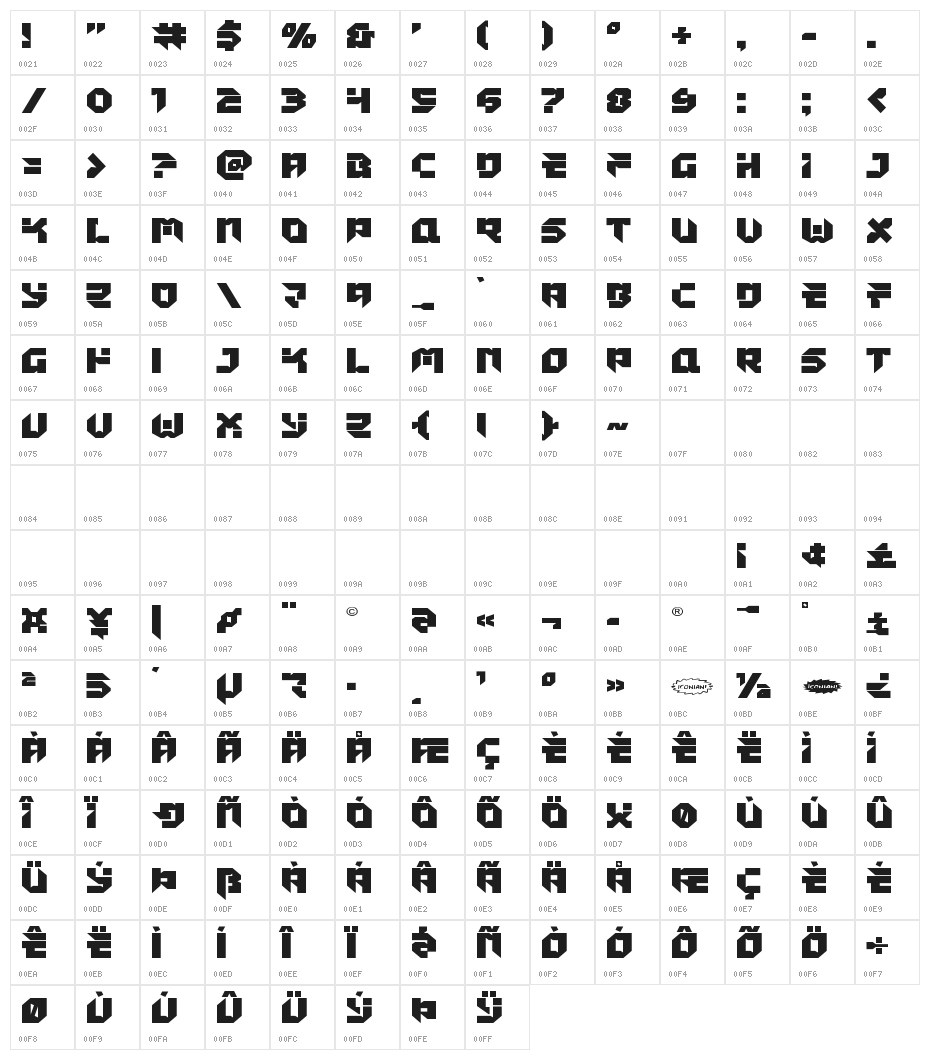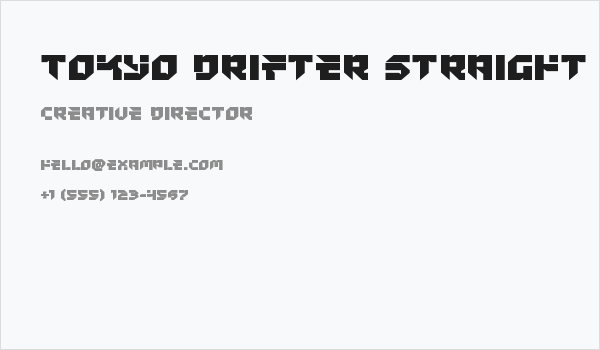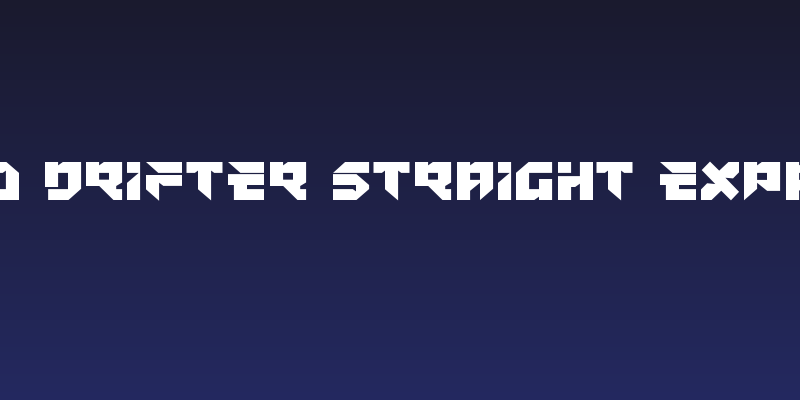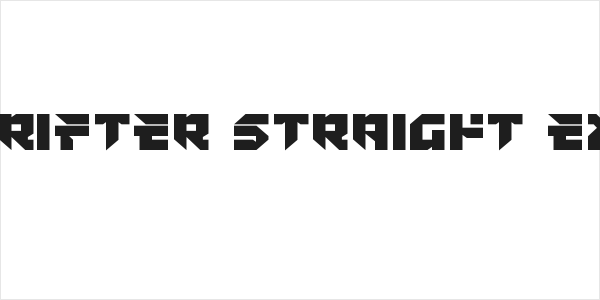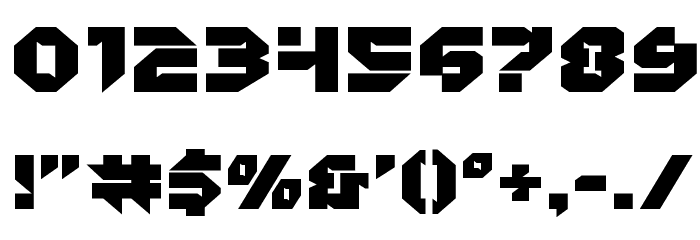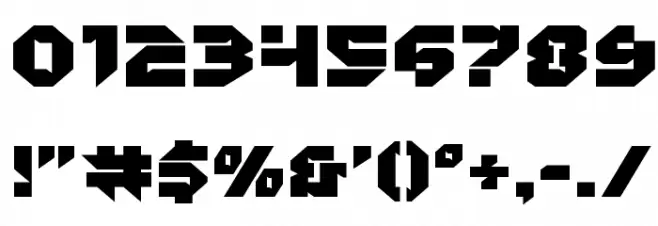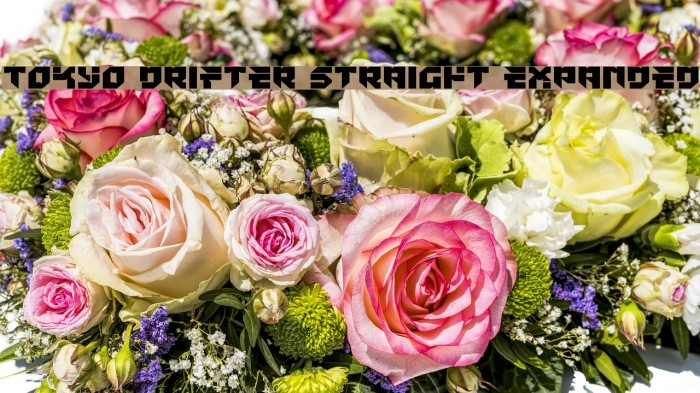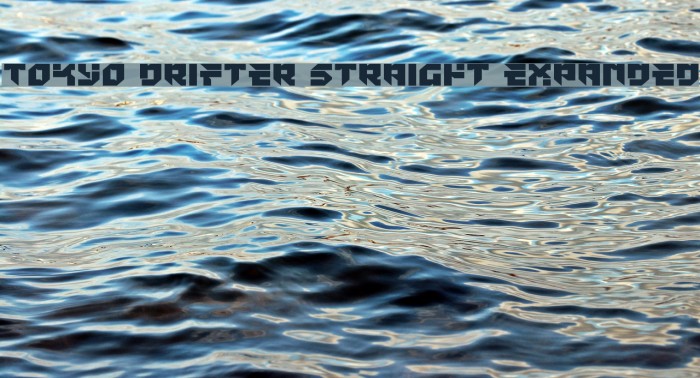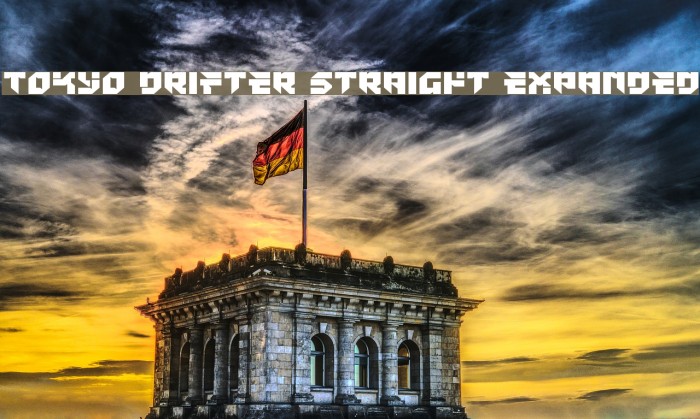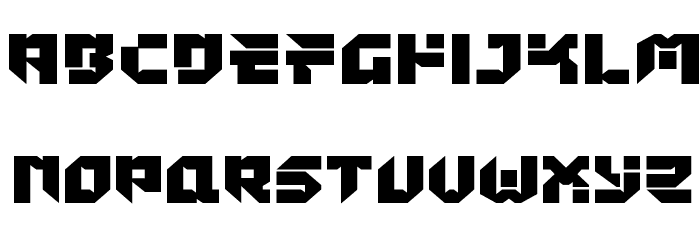
Tokyo Drifter Straight Expanded Font
Tokyo Drifter Straight Expanded Description
This font features a bold and geometric design with sharp, angular edges and a futuristic aesthetic. The characters are constructed with straight lines and hard corners, creating a sense of strength and modernity. The uppercase and lowercase letters maintain a consistent style, with a uniform height and width that contributes to a cohesive look. Numbers and special characters follow the same design principles, ensuring a harmonious appearance across all glyphs. The font's expanded width gives it a commanding presence, making it suitable for impactful headlines and titles.
| Proposed Projects | Ideal for sci-fi themed projects, video game titles, posters, and branding that requires a modern and bold statement. |